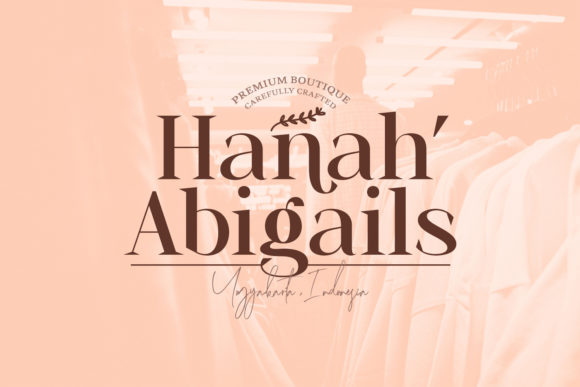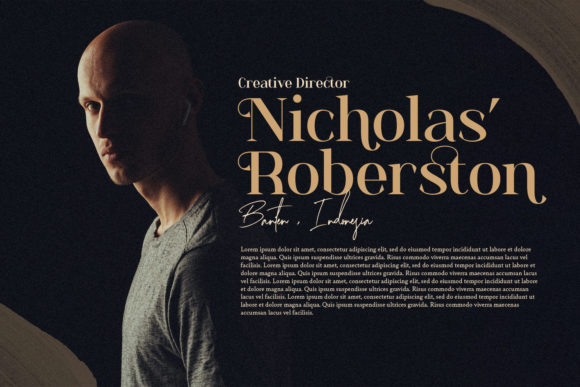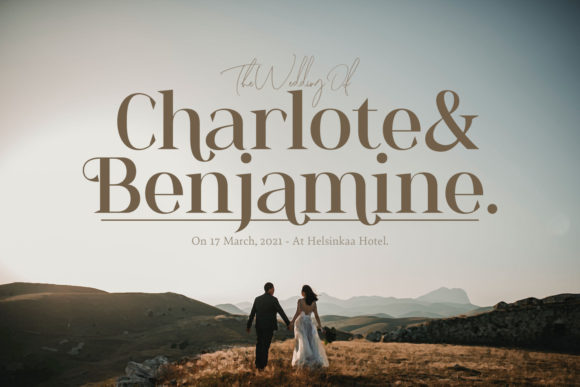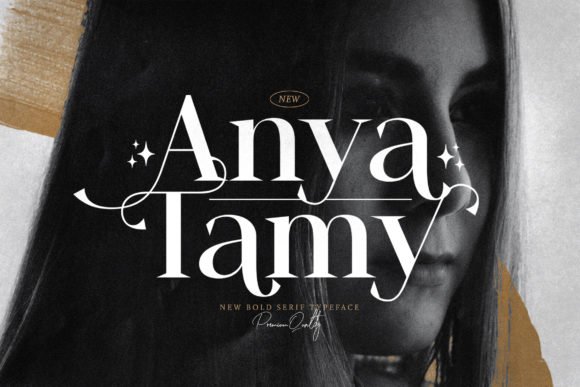
Introduction to Anya Tamy Font
Anya Tamy is a bold and elegant serif font.
It can be used for various purposes such as logos, wedding invitations, headings, t-shirts, letterhead, signage, labels, news, posters, badges and so much more .
Anya Tamy Font offers exceptional quality and versatility, making it a valuable addition to your design toolkit. Whether you’re creating for personal projects or commercial use, Anya Tamy Font delivers professional results.